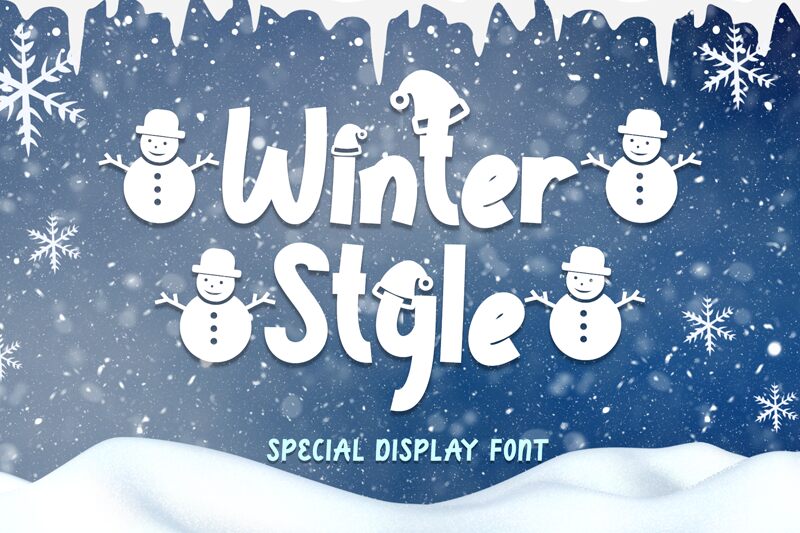
Winter Style font by Yoga Letter is a free Christmas typeface that combines a modern feel with a friendly and quirky appearance. With rounded features, this casual font suits well for projects aimed at conveying warmth and creativity for the holidays.
Use Winter Style for book covers, gift cards, invitations, typography quotes, social media posts, mugs/t-shirts/hoodies prints, digital or print ads in newspapers/magazines; also packaging/labeling.